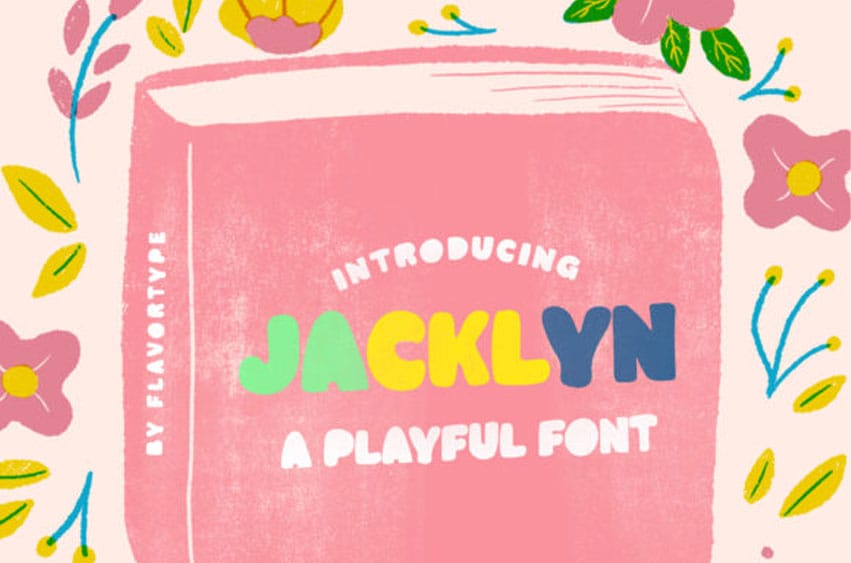
Jacklyn Font is a cute, friendly and neat display font.
This font is perfect for children themed designs, especially when combined with bright colors.